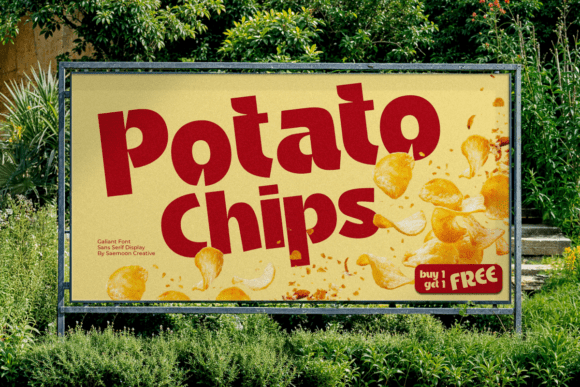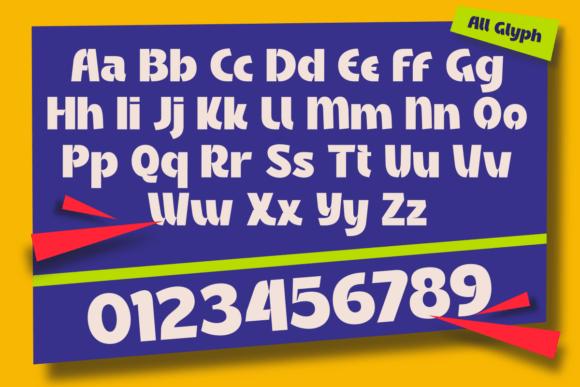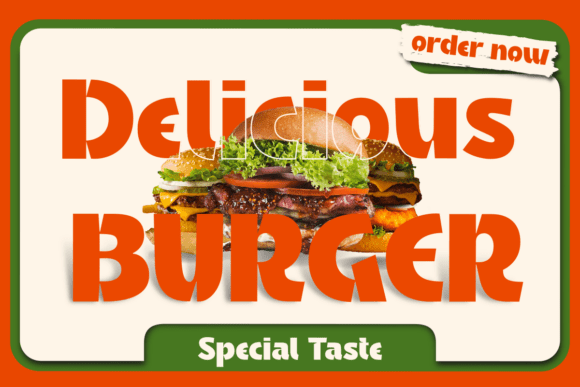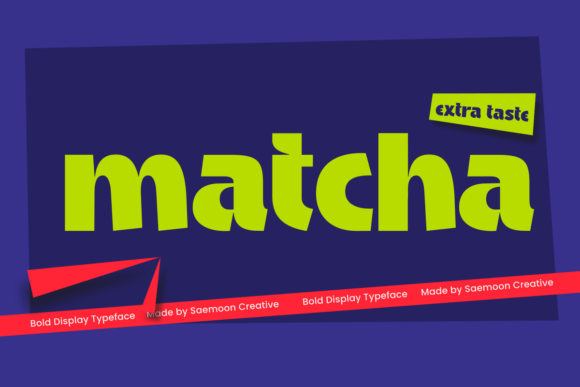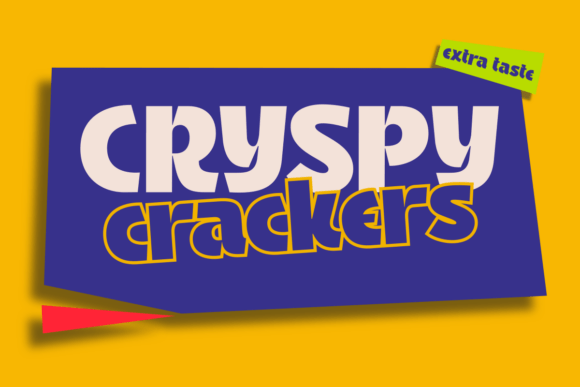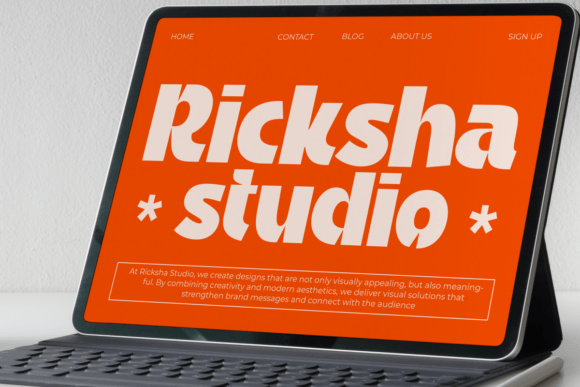
Unleash the Power of Galiant: A Bold Display Font for Modern Branding
I’ll never forget the design project that pushed me to search for the perfect bold font. I was working on a branding campaign for a new energy drink, and I needed a typeface that would convey strength, confidence, and a hint of edginess. After hours of browsing through font libraries, I stumbled upon Galiant – a formidable display sans serif typeface that instantly caught my attention. In this article, I’ll share my experience with Galiant, its features, and how to make the most of this powerful font.
First Impressions: What I Love About Galiant
Galiant is a game-changer for designers looking for a bold and attention-grabbing font. Here are some things I love about it:
- ✨ Bold and assertive character set: Galiant’s sturdy lines and chunky design make it perfect for logos, headlines, and posters that demand attention.
- ✅ Multilingual support: With seamless support for multiple languages, Galiant is an excellent choice for global brands.
Honest Review: Small Quirks and Limitations
While Galiant is an exceptional font, it’s not without its quirks:
- 🤔 Limited use cases for body text: Due to its bold design, Galiant is best suited for headlines and titles. It may not be the best choice for body text or paragraphs.
- ⚠️ Some glyphs may require manual adjustment: Depending on the design, some glyphs may need manual adjustment to ensure proper spacing and alignment.
The Story Behind Galiant
Galiant was designed with the goal of creating a bold and assertive typeface that would make a lasting visual impact. Inspired by modern branding and advertising, Galiant’s designer aimed to craft a font that would convey confidence, strength, and a hint of edginess. The result is a versatile font suitable for a wide range of design applications.
| Font Name | Galiant Font |
| Author | saemooncreative |
| What is Galiant best suited for? | Galiant is ideal for logos, headlines, posters, packaging, and designs that demand attention. |
| Can I use Galiant for body text? | While possible, Galiant is best suited for titles and headlines. Its bold design may not be suitable for extended body text. |